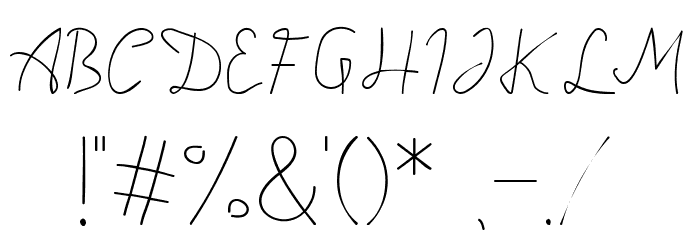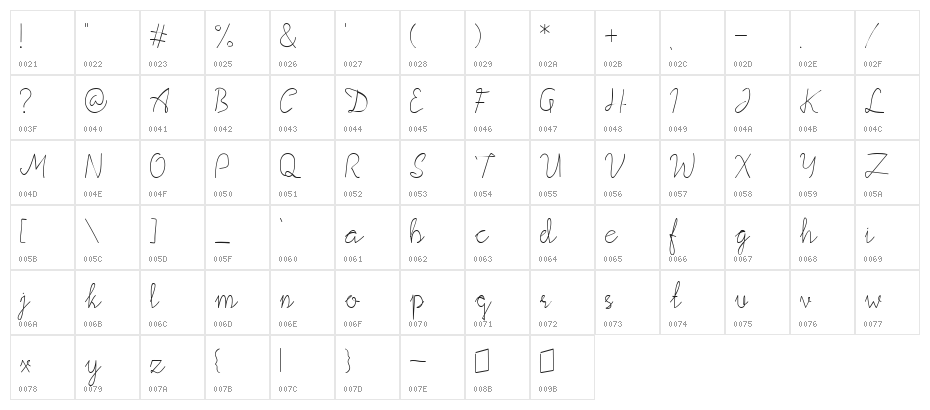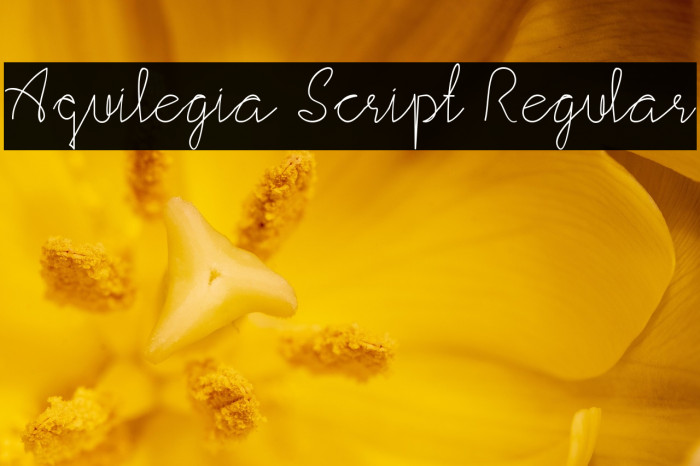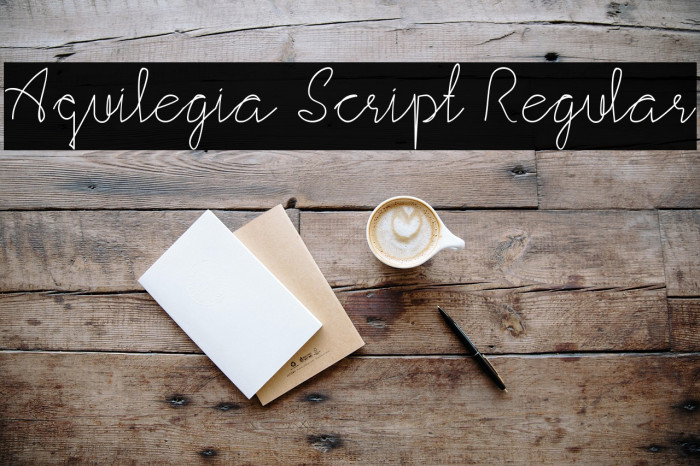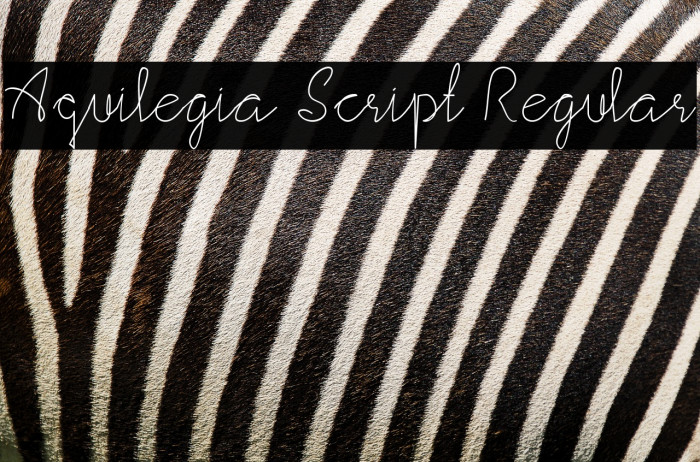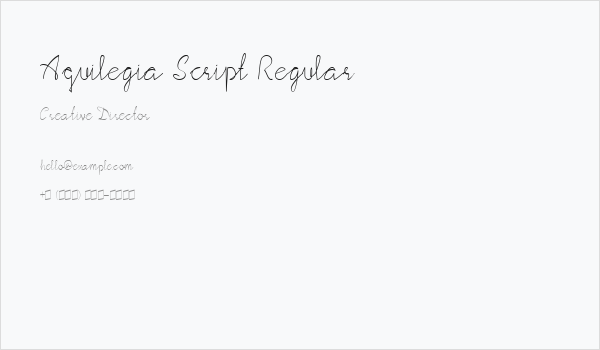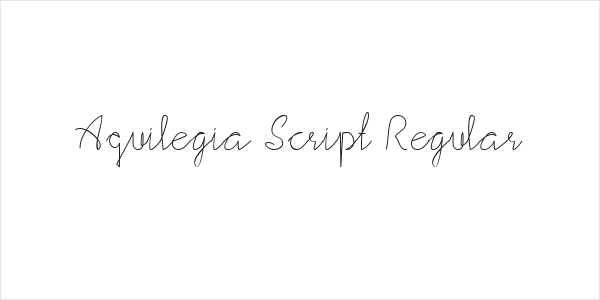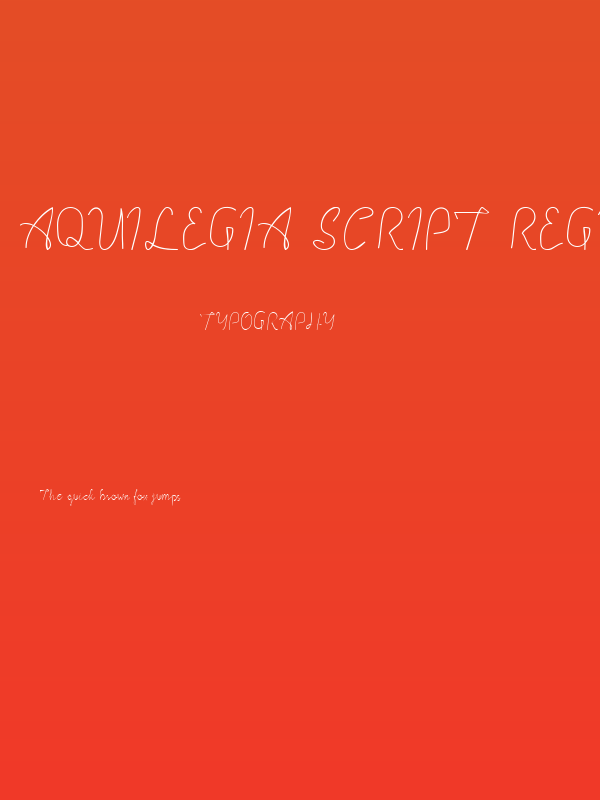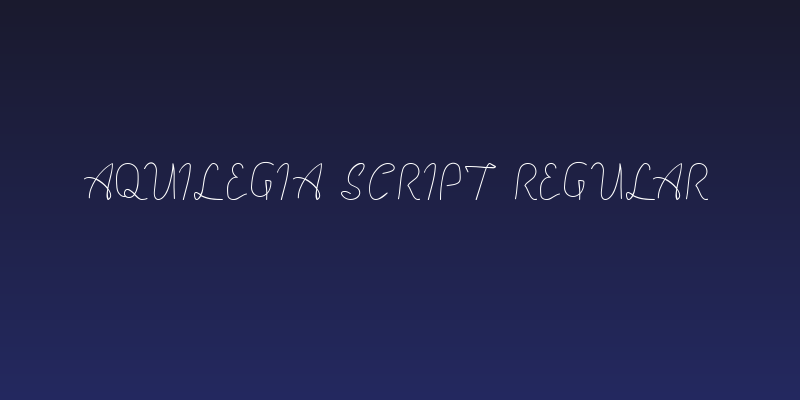
Aquilegia Script Regular Font
Aquilegia Script Regular Description
This font features a delicate and flowing script style, characterized by its elegant and cursive letterforms. The uppercase letters exhibit a graceful, looping design, while the lowercase letters maintain a consistent fluidity, enhancing the font's overall aesthetic appeal. The strokes are thin and uniform, contributing to a light and airy appearance. The font includes a full set of uppercase and lowercase letters, numerals, and a variety of special characters, making it versatile for different design needs. Its handwritten quality adds a personal touch, suitable for projects that require a sophisticated and artistic flair.
Overall StyleElegant
Use CaseInvitations, Artistic projects, Personal branding
Proposed ProjectsIdeal for wedding invitations, greeting cards, personal branding, and artistic projects.